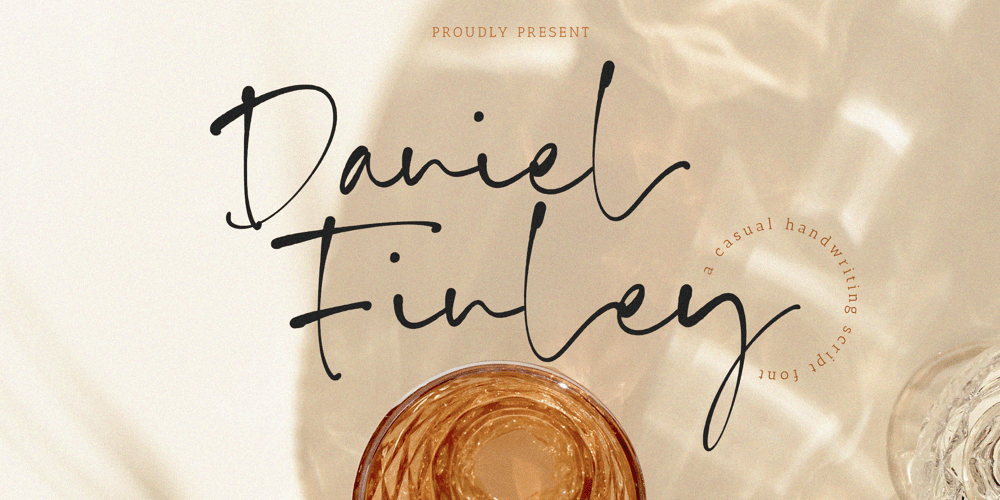
Daniel Finley Font Family was designed by Wara Sigit Tri Pamungkas and published by Timurtype. Daniel Finley contains 1 styles and family package options. Introduced by Timurtype Studio!Daniel Finley is a Casual Handwritten Script FontThis font is a charming casual handwritten script font that effortlessly blends elegance with approachability. Its fluid strokes and relaxed style create a warm, inviting feel, perfect for adding a touch to invitations, greeting cards, or brand identities. With its playful yet refined character, Daniel Finley brings a touch of authenticity and creativity to any design project.Daniel Finley also supports multilingualismEnhance your designs with our original fonts, feel free to comment or provide feedback, Enjoy the fonts 😊Thank You